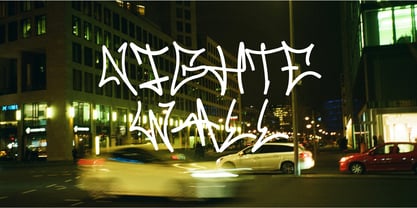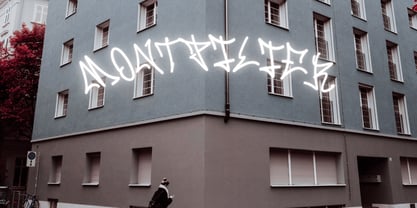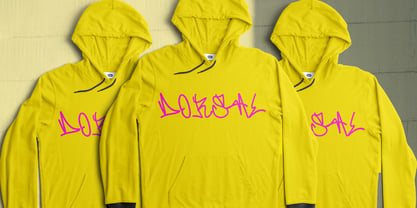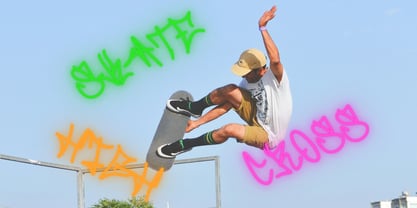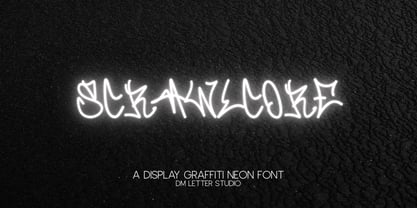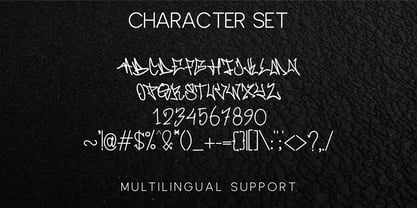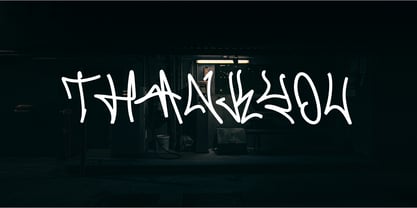
Scrawlcore
by DM Studio
The Scrawlcore Font Family was designed by Dimas Prasetyo and published by DM Studio. Scrawlcore contains 1 styles. More about this family
Meet Scrawlcore, the Display Graffiti Neon Font Scrawlcore is a bold graffiti neon display font built for loud, electric designs. The letterforms feel raw and expressive, like street tags glowing under city lights. Sharp angles, energetic strokes, and neon-ready shapes give it a high-impact presence. Use Scrawlcore for music covers, streetwear branding, YouTube thumbnails, gaming graphics, posters, and nightlife promotions. As a result, your typography feels urban, rebellious, and impossible to ignore.   Why Scrawlcore sells First, Scrawlcore installs quickly and works smoothly in Canva, Photoshop, and Illustrator. Next, the strong graffiti structure keeps it readable even with glow effects and outlines. Then layouts come together fast because the style already carries bold personality. Moreover, neon aesthetics are trending for gaming, music, and street culture niches. Therefore, Scrawlcore is perfect for creators targeting edgy and youth-driven markets.   Fast layouts with the Scrawlcore Font Start with short, punchy words to maximize the neon impact. After that, add a glow effect or outer stroke to enhance the electric vibe. Because the style is expressive, keep backgrounds dark or minimal for contrast. In addition, pair it with a clean sans serif for smaller supporting text. Finally, save neon palettes like electric blue and black, hot pink and purple, lime green and charcoal, or red and navy for consistent visual branding.   Creative uses and quick wins Music album covers and DJ posters Streetwear logos and hoodie prints Gaming thumbnails and streaming graphics Nightclub flyers and event promotions What you get Uppercase and lowercase letters Numbers and basic punctuation   Design tips for Scrawlcore Use Scrawlcore for headlines and avoid long paragraphs. Also, apply glow effects carefully so letters remain readable. For print, test neon colors to ensure strong contrast. For digital use, scale slightly larger so details stay sharp on mobile screens. Finally, combine it with simple shapes or frames to anchor the design.
Designers: Dimas Prasetyo
Foundry: DM Studio